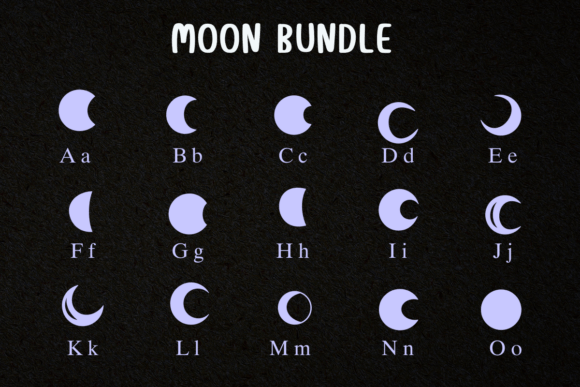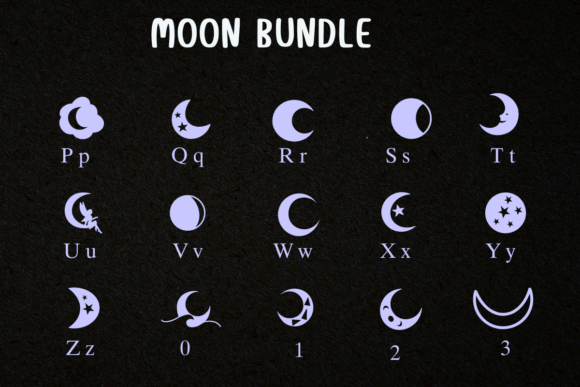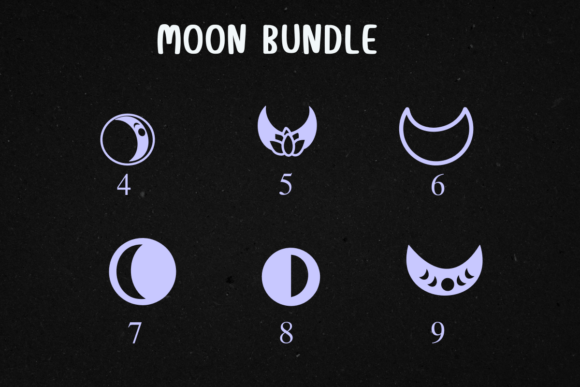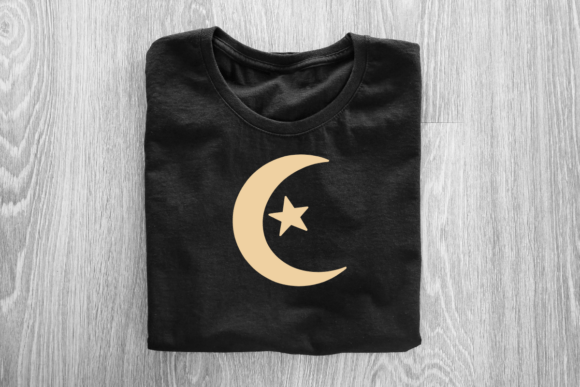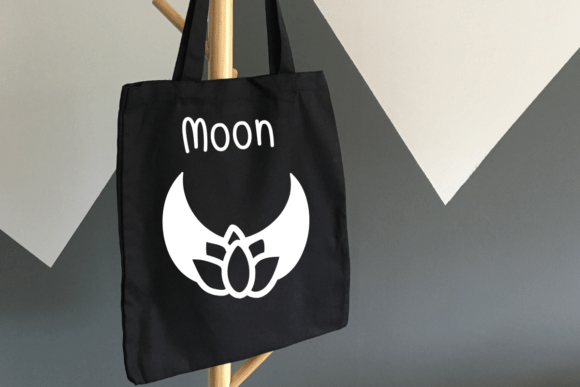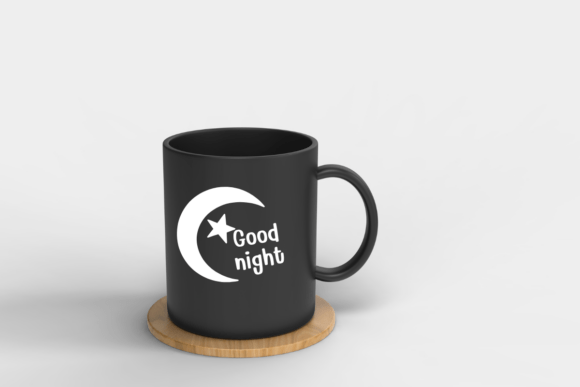
Introduction to Moon Bundle Font
Have you ever found yourself stuck in a creative rut, yearning for a spark to ignite your next project? As a designer, you know the struggle of searching for that perfect font to bring your vision to life. I recall a particularly frustrating evening spent browsing through endless font collections, only to be met with the same old, mundane options. That’s when I stumbled upon the Moon Bundle Font – a game-changing design resource that transformed my creative process overnight.
What sets the Moon Bundle Font apart from other dingbat typefaces is its captivating, mystical aesthetic. This enchanting font is perfect for designers seeking to add a touch of magic to their work. With a wide range of moon phase icons, crescent silhouettes, and cosmic designs at your fingertips, the possibilities are endless. Whether you’re working on an astrology project, creating a boho craft, or designing a celestial event invitation, the Moon Bundle Font is sure to elevate your creative project.
Key Features of Moon Bundle Font
- High-quality design resource with a unique, modern aesthetic
- Includes 5 font styles with varying weights and designs
- Perfect for branding, logos, and other design elements in creative projects
Honest Review: Moon Bundle Font
I recently had the chance to work with the Moon Bundle Font, and I must say it’s been a game-changer for my design projects. As a designer, I’m always on the lookout for high-quality design resources that can elevate my work and make it stand out.
- High-quality design: The Moon Bundle Font is crisp, clean, and beautifully designed, making it perfect for any creative project.
- Transparent background: This feature is a must-have for any designer, and the Moon Bundle Font delivers.
While the Moon Bundle Font is an excellent resource, there are a few limitations to be aware of:
- Limited customization options: While the font is well-designed, it’s not highly customizable, which may be a drawback for some designers.
- Not suitable for complex projects: The Moon Bundle Font is best suited for simple design projects, and may not be the best choice for more complex designs.
Overall, I’m thoroughly impressed with the Moon Bundle Font, and I would highly recommend it to any designer looking for a high-quality, free design resource. With its transparent background, high-quality design, and free download, it’s a must-have for any creative project.
Tips for Getting the Most Out of Moon Bundle Font
For best results, use the Moon Bundle Font with a transparent background to create a clean and modern design. Experiment with different font sizes and colors to add depth and visual interest to your project.
Common Use Cases for Moon Bundle Font
The Moon Bundle Font is ideal for creating digital products, such as ebooks, templates, and graphics. It’s also great for branding and marketing materials, like logos, business cards, and brochures.
Yes, the Moon Bundle Font has a transparent background, making it perfect for use on various design elements, such as logos, icons, and graphics. The transparent background allows you to easily combine the font with other design elements and create a seamless look.